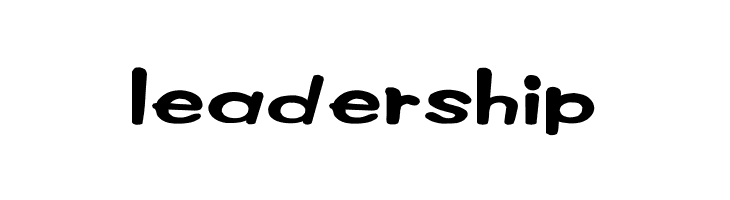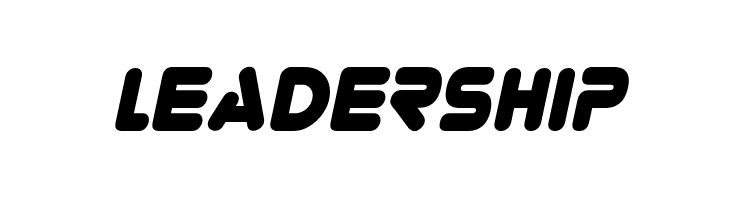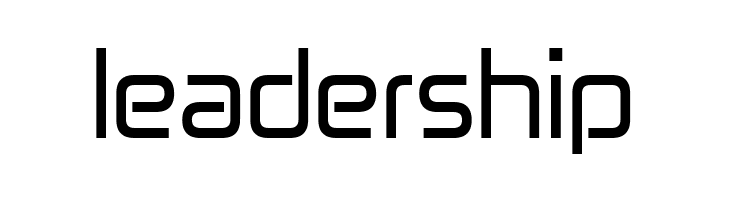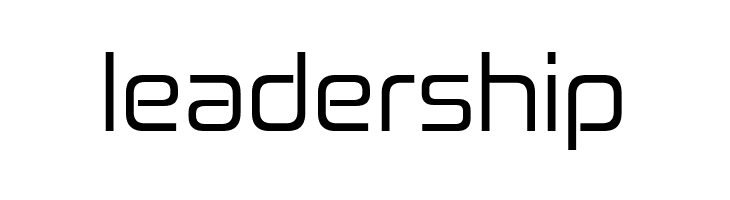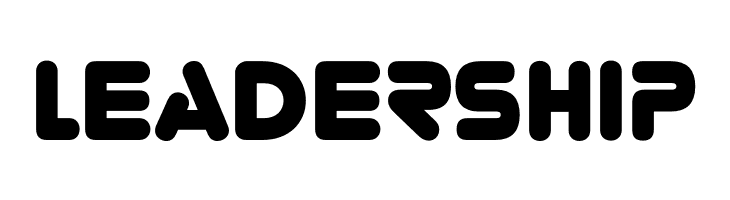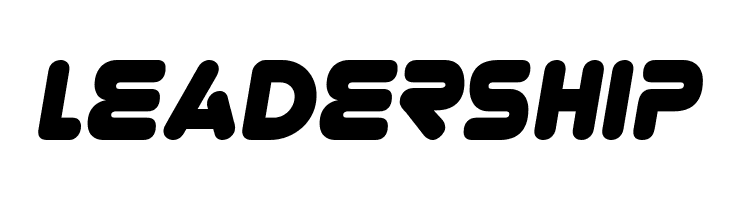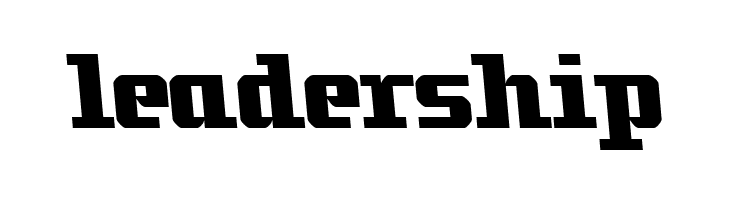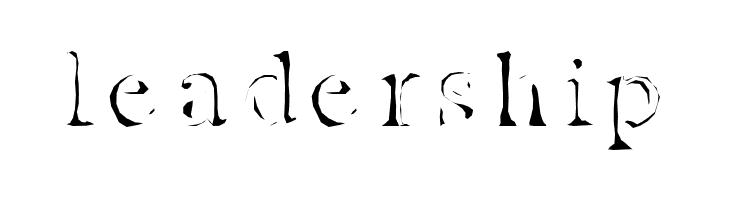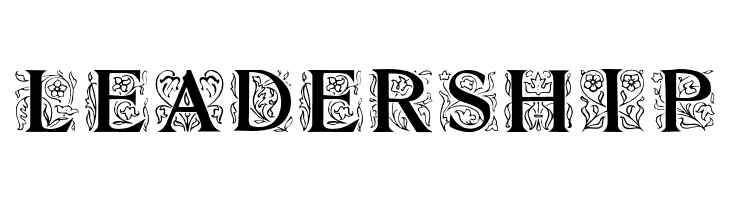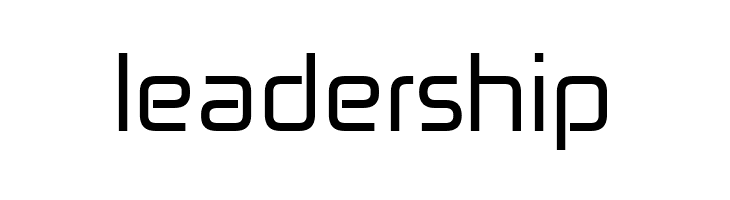
A modern, geometric font with a futuristic and artistic style.
A bold, decorative font with a vintage Western style and three-dimensional shadow effect.
A geometric and calligraphic font with a modern, artistic flair.
A bold, artistic font with sharp angles and a dynamic style.
A dynamic, italicized font with sharp, angular strokes and a modern flair.
A playful and eclectic font with diverse character styles and bold numbers.
A bold, rounded, and italic font with a modern and dynamic style.
A bold, rounded, and slightly italicized font with a modern, playful style.
A bold, rounded font with a modern and playful style.
A bold, rounded, and modern font with a futuristic style.
A whimsical font with characters as cartoonish food items.
A playful, rounded font with bold, consistent strokes and a casual style.
A modern, geometric font with rounded and angular elements, ideal for contemporary designs.
Ornate and decorative font with intricate floral patterns in uppercase letters.
A modern, geometric sans-serif font with clean lines and a technical look.
A modern, geometric font with clean lines and a technical appearance.
A bold, angular font with a modern and edgy geometric style.
A bold, angular font with a geometric and modern style.
A bold, angular font with a modern, tribal aesthetic.
A bold, geometric outline font with sharp angles and a modern look.
A geometric and abstract font with angular, fragmented letterforms and a futuristic aesthetic.